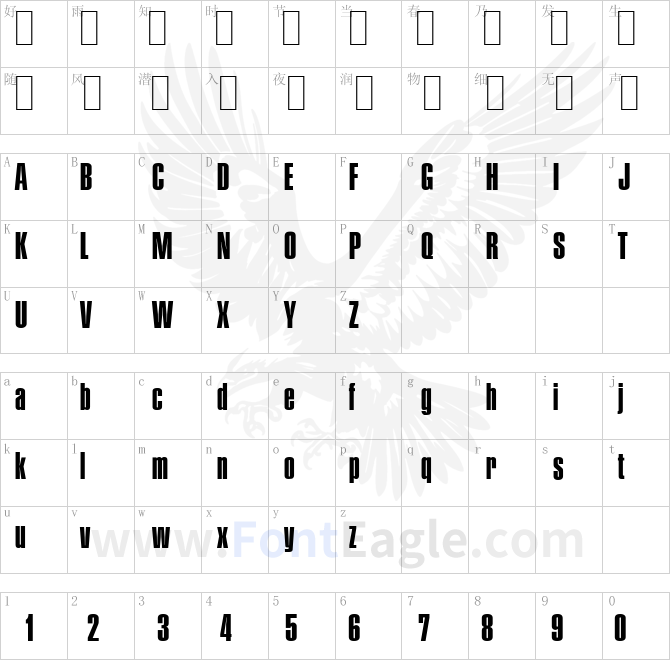
- Font name:PlaketteSerial
- Font Subfamily ID:SoftMaker Software GmbH PlaketteSerial-Bold
- Font Full Name:PlaketteSerial-Bold
- Postscript:PlaketteSerialBold